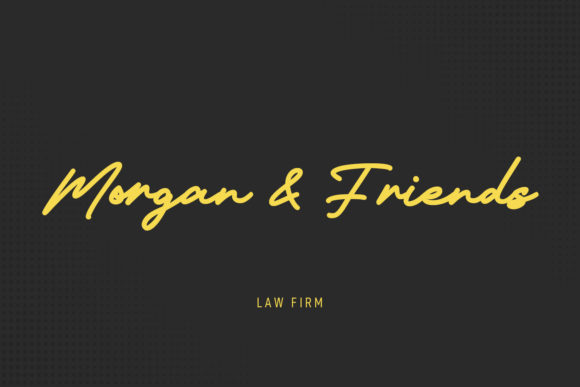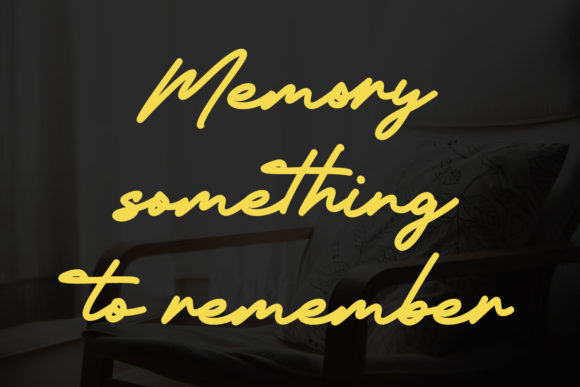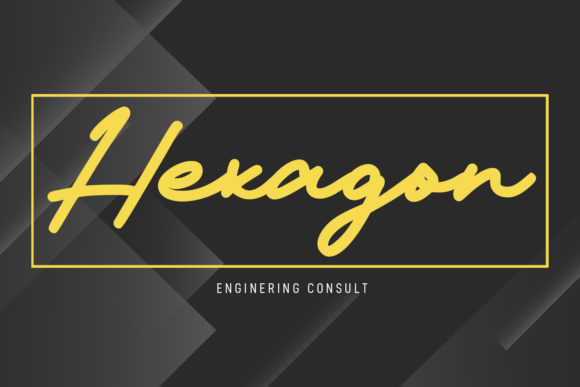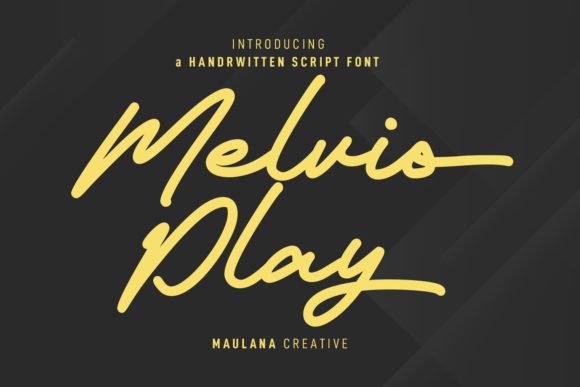
Introduction to Melvio Play Font
Melvio Play is a fancy and cursive script font.
It features medium mono-line strokes, fun characters with a bit of ligatures and alternates Add it to any of your designs, and enjoy the results.